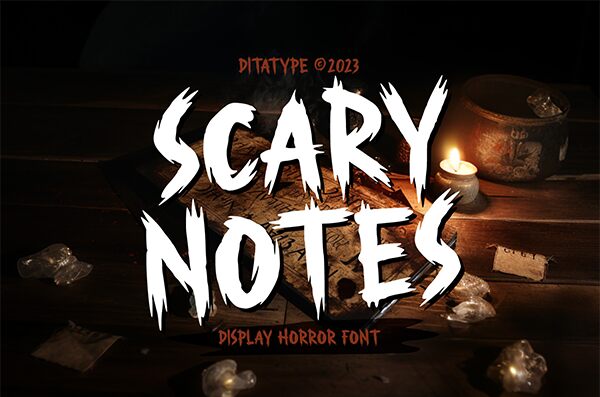
Scary Notes font by Ditatype is a bold display typeface designed to unsettle audiences with its rough and rugged forms. The overall shape of the letters, along with the sharp endings and prominent fills, makes this scary font an excellent fit for horror-based applications. Scary Notes captures attention even in short word arrangements where it can be most noticeable.
Use it for designing movie posters, book covers, games, mobile applications including thrillers or horrors, themed restaurant menus and banners. It’s additionally a perfect fit for album artworks of music bands and artists whose style includes rap or metal but is not limited to them as scary Notes can serve in many other niches where intense typography is needed such as advertising campaigns, packaging design concepts & labels burn table decorations business cards ads website landing pages among many other areas.